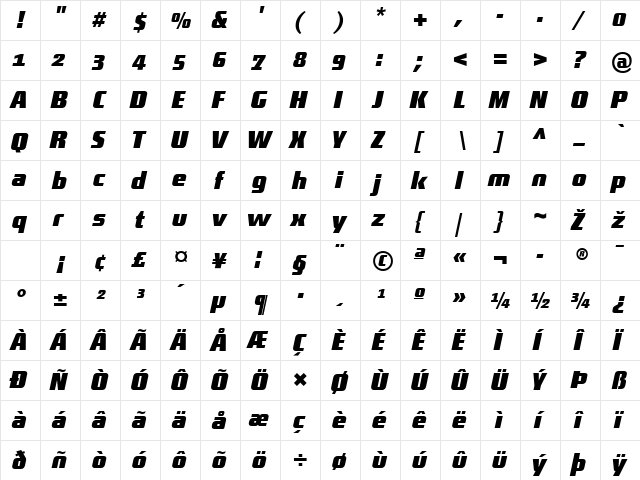
District-BoldItalicAlt Regular Font Preview
| Foundry | FontShop International |
| Designer | Albert Boton |
Design Context for District-BoldItalicAlt Typeface
District-BoldItalicAlt offers clean, dependable letterforms without strong stylistic allegiance, making it a practical choice for designers who need flexibility. The dynamic lean of this cut emphasises speed and emphasis in any layout. The heavy weight commands attention and anchors typographic hierarchies.
Pro Tip: Try District-BoldItalicAlt for annotation and caption copy alongside an upright companion — the contrast in angle creates a dynamic but ordered typographic system.